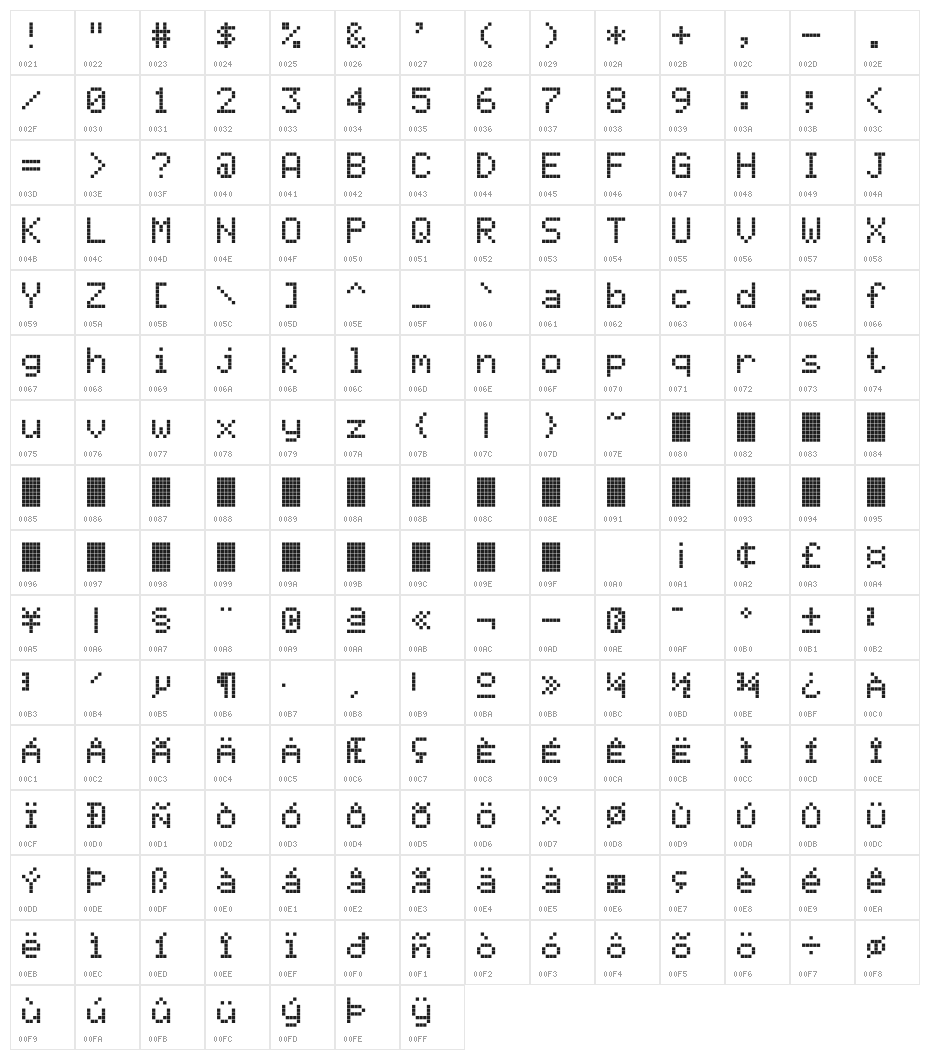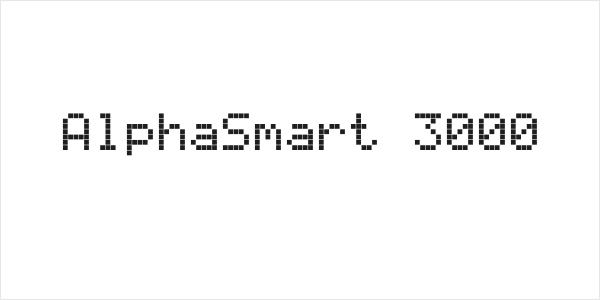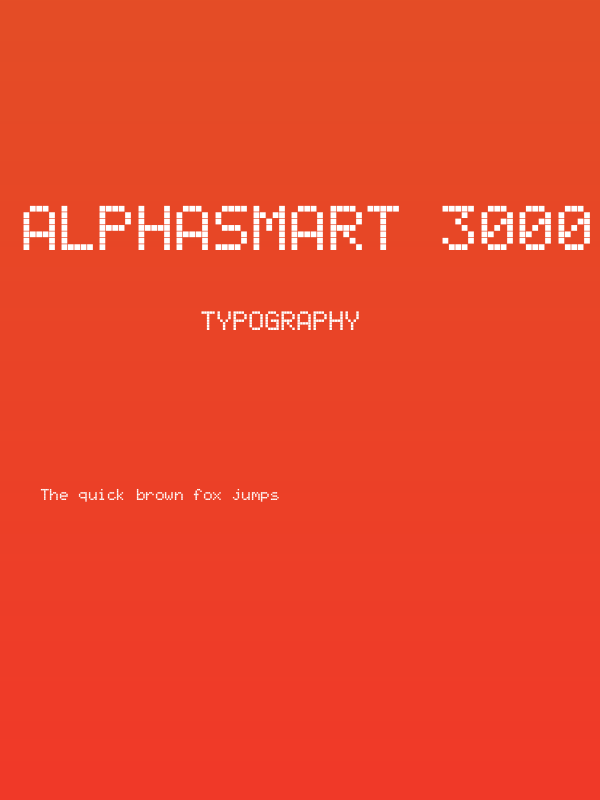
AlphaSmart 3000 Font
AlphaSmart 3000 Description
This font features a distinct pixelated design, reminiscent of early digital displays and retro computing interfaces. Each character is constructed from a grid of small squares, giving it a blocky, geometric appearance. The uniformity in the height and width of the characters contributes to a monospaced feel, ideal for maintaining alignment in text. The uppercase and lowercase letters maintain a consistent style, with clear differentiation between similar characters. Numbers and special characters are equally well-defined, ensuring readability. This font evokes a sense of nostalgia, perfect for projects that aim to capture the essence of vintage technology.
| Use Case | Logos, Digital displays, Video games |
| Proposed Projects | Ideal for retro-themed designs, video game graphics, digital art, and tech-inspired branding. |